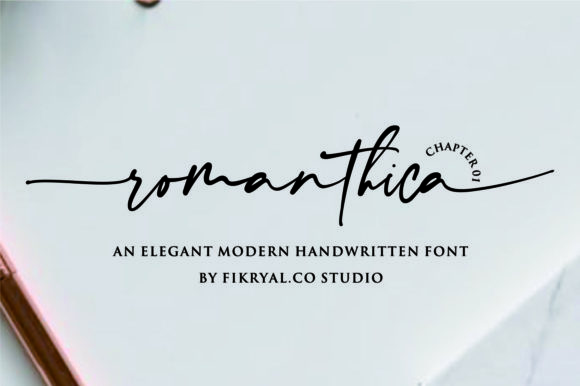
Prepare to be enchanted by Romanthica, an awe-inspiring script font that will transform your creative endeavors into breathtaking masterpieces. Crafted with the utmost care by the renowned Fikryal Studio, Romanthica embodies elegance and sophistication, exuding a charm that will captivate your audience.
Immerse yourself in a realm of unparalleled beauty as you explore the exquisite curves and delicate flourishes that define Romanthica. Each letter dances upon the page, carrying with it an undercurrent of timeless grace. Whether you're a seasoned designer or just starting your creative journey, Romanthica will elevate your projects to new heights of artistic expression.
Indulge in the versatility of Romanthica, a font that seamlessly adapts to a symphony of design styles. From whimsical invitations to heartfelt letters, from captivating social media posts to awe-inspiring branding, Romanthica possesses the chameleon-like ability to enhance any project with its undeniable charm.
With Romanthica at your fingertips, you'll unlock a treasure trove of creative possibilities. Picture the joy of crafting personalized greeting cards that evoke heartfelt emotions, the thrill of designing logos that exude timeless appeal, and the satisfaction of creating social media content that captivates your audience with its effortless elegance.
Romanthica is more than just a font; it's an investment in your creative future. A font that will inspire countless moments of brilliance, empower you to express your unique style, and leave an unforgettable mark on the world. Embrace the enchantment of Romanthica today and embark on a creative journey that will redefine your artistic boundaries.